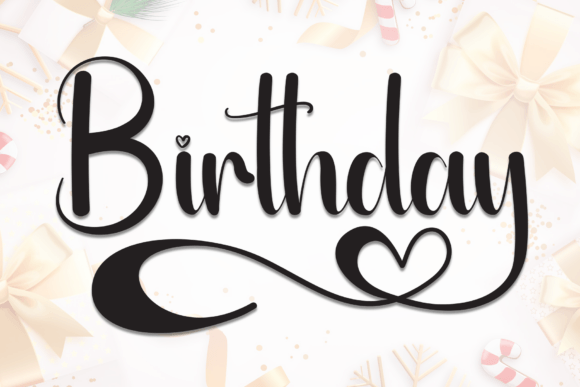
Unleashing the Magic of Birthday Font: Where Whimsy Meets Sophistication
Have you ever sat down with a blank sheet of paper and a pen, only to let your creativity flow freely, as words and ideas dance across the page? That’s the moment when inspiration strikes, and the magic begins. For designers, this moment is what makes the craft so rewarding – the thrill of bringing a concept to life, of infusing it with personality and charm. And, for those moments, we have the Birthday Font, a delightful handwritten display font that’s sure to captivate your audience.
This endearing font is the perfect choice for artisans, event planners, and designers who want to add a touch of whimsy and sophistication to their projects. Whether it’s a wedding invitation, a personalized card, or a social media post, Birthday Font is the perfect way to express your creativity and make a lasting impression. Its unique charm and inviting personality make it a valuable addition to any designer’s toolkit.
Birthday Font Key Features
- Unique Characteristics: The font features a playful, cursive design with decorative elements, making it perfect for birthday invitations, party decorations, and other celebratory designs.
Birthday Font Review
Overall, I was really excited to dive into the Birthday Font, but as I started working with it, I found both great things and some areas for improvement. ✨
- The Birthday Font has a playful, celebratory vibe that’s perfect for birthday invitations and decorations. The script style is elegant and easy to read.
- The font includes a wide range of characters, including numbers, punctuation, and even some special symbols. This makes it easy to use in a variety of contexts.
- The font is highly customizable, with options for adjusting the size, color, and spacing. This gives you a lot of flexibility when using it in different designs.
- One major limitation is that the font doesn’t include a bold or italic version. This can make it harder to use in situations where you need a bit more emphasis.
- The font also doesn’t work well at very small sizes. This can make it hard to read in certain contexts, like on business cards or tiny flyers.
- Finally, the font is only available in a few different styles. While the script style is lovely, it would be great to have some additional options to choose from.
Overall, I think the Birthday Font is a solid choice for designers looking for a fun, celebratory font. While it’s not perfect, it’s a great option for birthday invitations, decorations, and other projects that need a bit of flair. With a bit more development to address its limitations, I think it could be an even more powerful tool in our design arsenal.